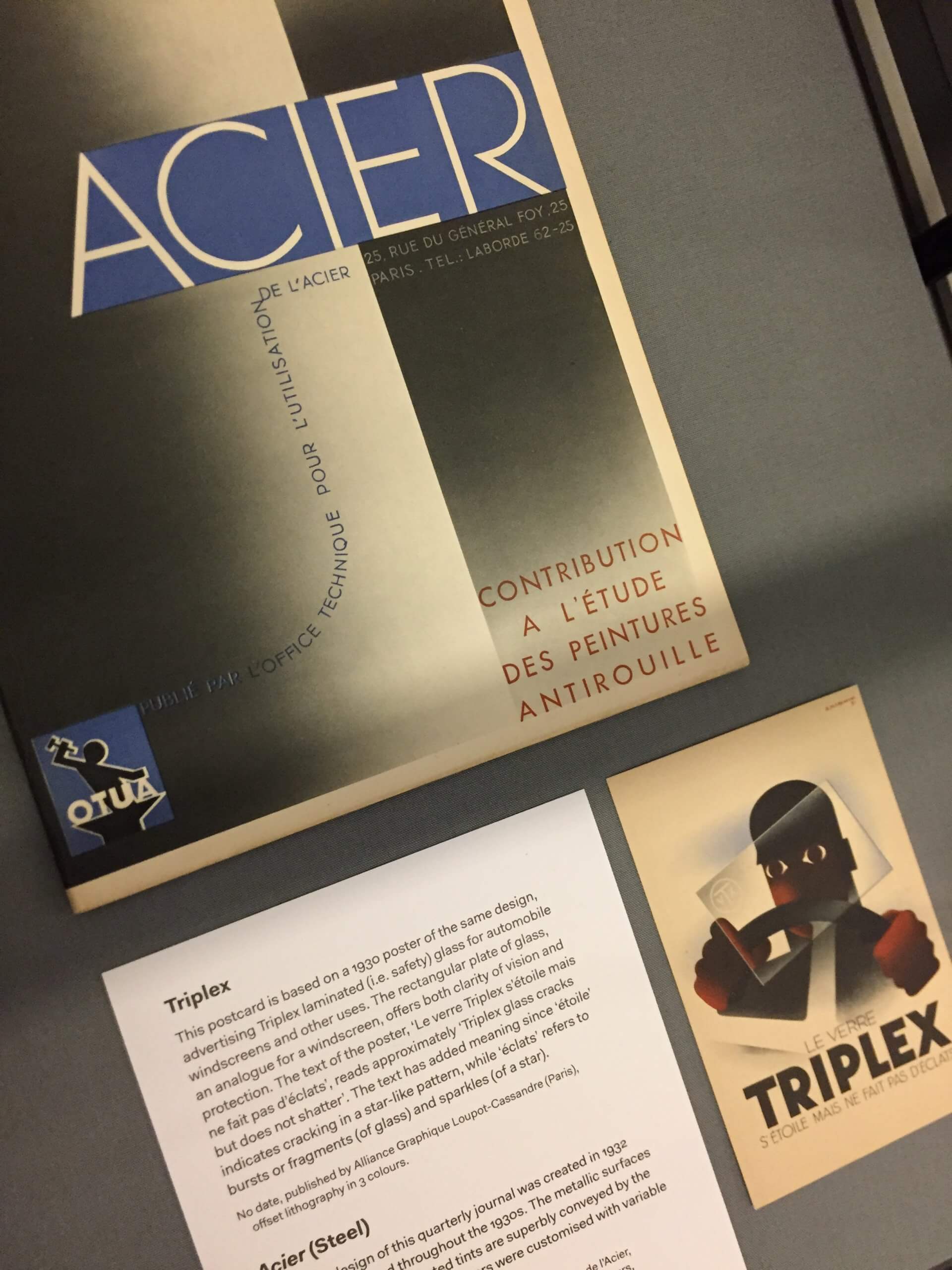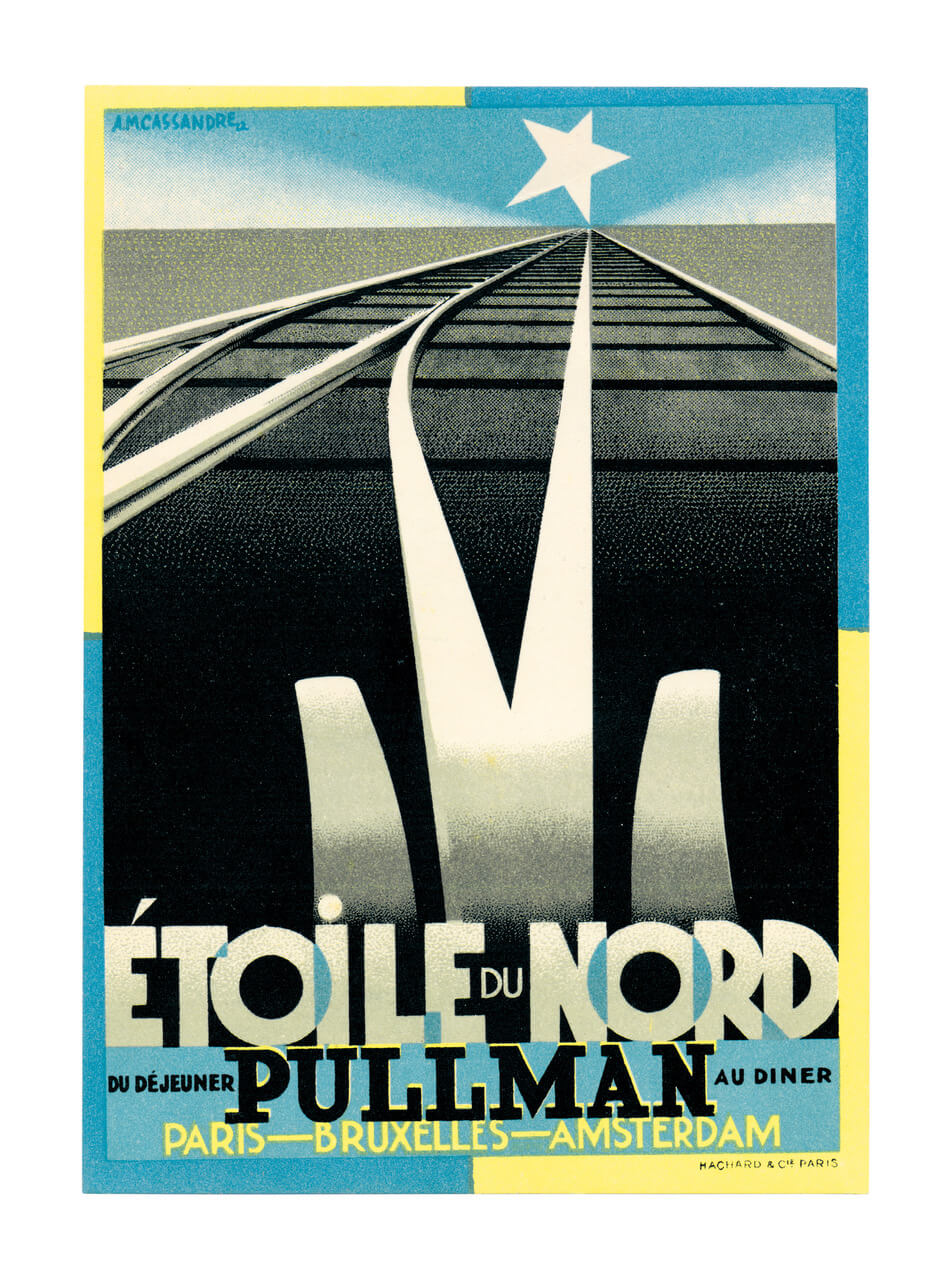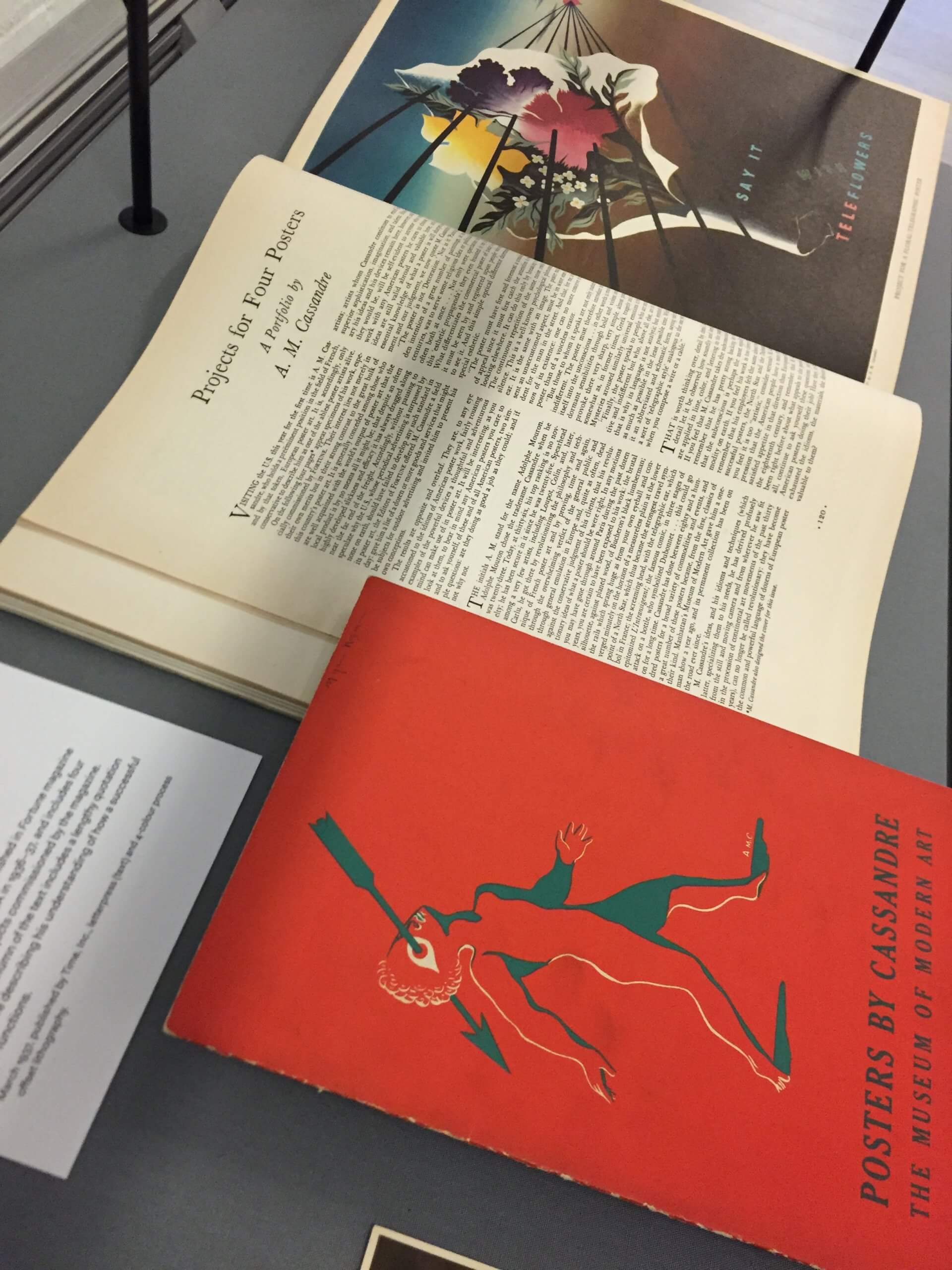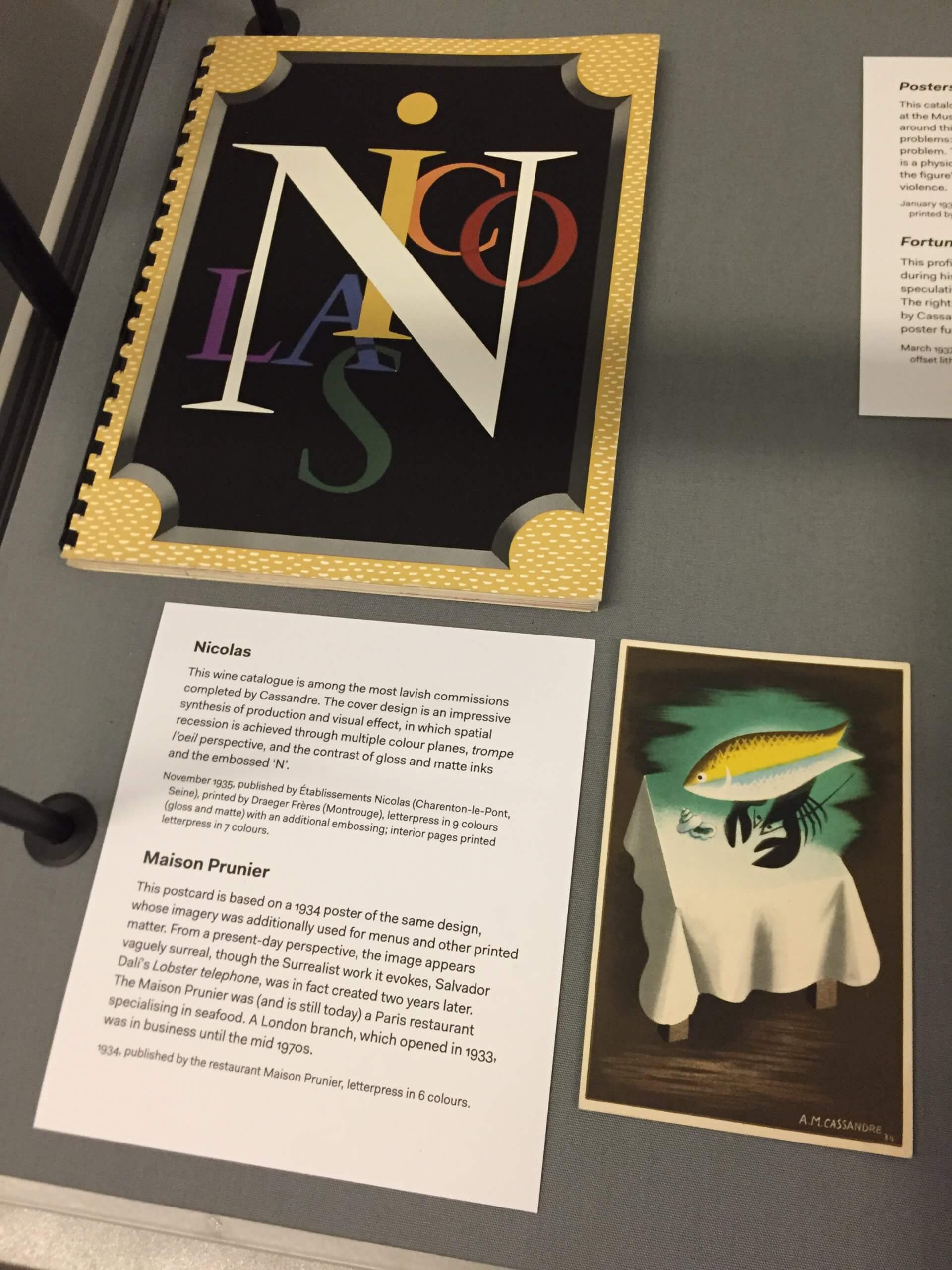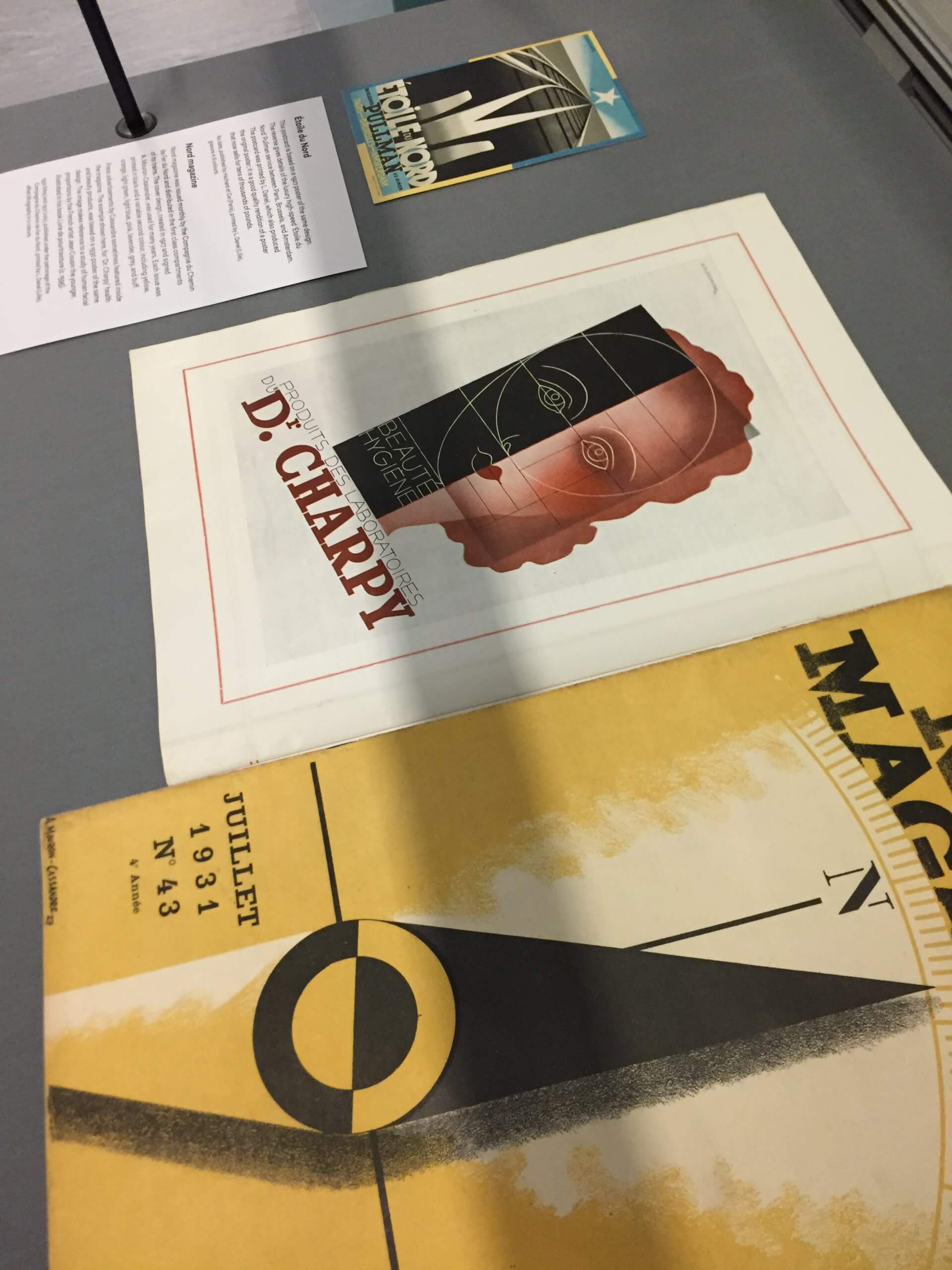
Letterpress: possibilities & practice
An exhibition in the Department
Letterpress printing has never lacked dedicated practitioners since its decline as a mainstream commercial printing process. But its conspicuous use in recent years – in the UK, Germany, Italy, USA, Brazil and many other places – is evidence of a resurgent interest in letterpress as an engine for research, design and making. Driving this interest is in part a renewed valuation of the materiality of print as a counterweight to the disembodied digital form of much present-day typography and graphic communication.
Recent letterpress practices are renovating and expanding the process. This exhibition presents some of these practices, alongside complementary examples from the 1980s and 90s. They involve the exploration of print effects, the visual formation of language, the reconstruction or reinvention of historical technique, the reconfiguration of letterpress in ‘post-digital’ form, and more. Taken together, the work on display suggests that letterpress printing continues to offer many possibilities for scholarly, speculative and commercial endeavour.
Practices on display:
• Reconstruction of historical typography: Gutenberg, Fust & Schoeffer
(Martin Andrews, Alan May)
• Impressions of historical types: Louis John Pouchée
(Ian Mortimer, James Mosley)
• Re-invention of historical technique: compound-plate printing
(Pierre Pané-Farré)
• Independent workshop practice
(Alan Kitching / The Typography Workshop, London; p98a, Berlin)
• Independent book production
(Juliet Shen, Bram de Does, Giulia Garbin and Stefano Riba)
• Post-digital printing
(p98a, Berlin; Suhrkamp Letterpress)
• Structure in type and language
(Phil Baines)
• Variation in series
(Eric Kindel)
• Colour overprinting, split-fount printing
(Charan Aruja, Katy Mawhood, Susann Vatnedal)
Emigre magazine: design, discourse and authorship
Emigre 11 cover, ‘Ambition/fear’, 1989
An exhibition in the Department
Emigre magazine, co-founded in California in 1984 by Rudy VanderLans, was a provocative and highly adventurous fusion of self-publishing, critical writing and experimental typography. This exhibition investigates a key period in the development of graphic design as a form of authorship and shows how Emigre’s page designs and typefaces embodied new thinking about the designer’s role in communication.
Interviews with April Greiman and Glenn Suokko in Emigre 11, ‘Ambition/fear’, 1989. The early issues of Emigre coincided with the adoption of Macintosh computers by graphic designers. Emigre 11 is devoted to a series of interviews with designers about the new tool. The magazine’s pages often offered multiple reading paths.
With an initial print run of 3,000–5,000 copies, the magazine was supported by a design studio, Emigre Graphics, and by a digital type foundry led by VanderLans’ partner Zuzana Licko. Emigre published 69 issues in a range of formats, from tabloid to paperback book, before closing in 2005, and it was probably the most admired, influential and criticised design magazine of its era.
Emigre 15 cover, ‘Do you read me?’, 1990. This issue, focused on new typefaces and legibility, features typeface designs and interviews with Peter Mertens, Zuzana Licko, John Downer, Jeffery Keedy and Barry Deck, among others.
In the 1990s, the idea that graphic design could be a form of authorship was the focus of intense debate among designers. VanderLans created a vital forum for discussion during a period of rapid change and Emigre’s design and content inspired an international network of visual communicators. The magazine was an era-defining example of entrepreneurial design authorship, which still has lessons for self-publishers today, and a platform where designers could explore the relationship of writing and design.
The exhibition, co-curated by MA Book Design student Francisca Monteiro and Prof. Rick Poynor, draws from the University of Reading’s Special Collections and Rick’s personal collection. The display is divided into sections that reflect the range of Emigre’s activities:
Rudy VanderLans as editor
The Emigre type foundry led by Zuzana Licko
VanderLans as a graphic author
The Emigre Music record label
Emigre as a space for collaborative authorship for designers and writers
Emigre considered in context
Have you ever really looked at . . .? A. M. Cassandre
In 1994, Richard Hollis wrote:
‘Cassandre’s “Étoile du Nord” railway poster has become a paradigm of the Good Design to which we all aspire. But do we ever really look at this poster? If designing is about deciding, and good design about good decisions, then critical history can illuminate its exemplary character: the concentrated intelligence in its expression of the north star in word and image; in its mathematical structure; in its use of colour and the construction of its lettering. It is also a work of its time: demonstrably pre-photographic in its cubistic technique, its tonal gradation achieved by splatter and its colour by selected, not process colours.’
Frederick William Goudy, ‘Ands & ampersands’, Typography, no. 3, 1937, pp. 11–18
Paul Standard, ‘The ampersand – sign of continuity’, Signature, no. 8, 1938, pp. 44–51
‘Material histories’ presents graphic communication artefacts with a story to tell. The stories – the material histories – describe the artefacts in particular: what they are about, where they came from, their material qualities, their circumstances of production, how they were acquired, and crucially how they link to other artefacts, narratives and representations.